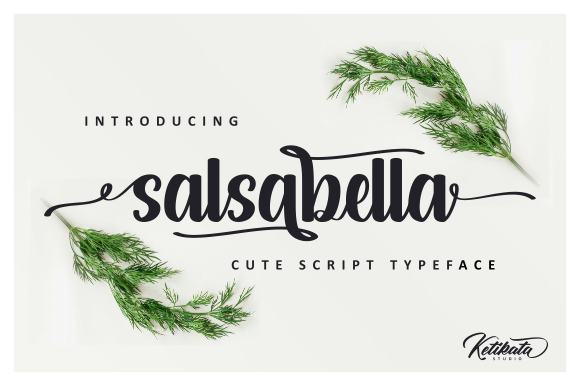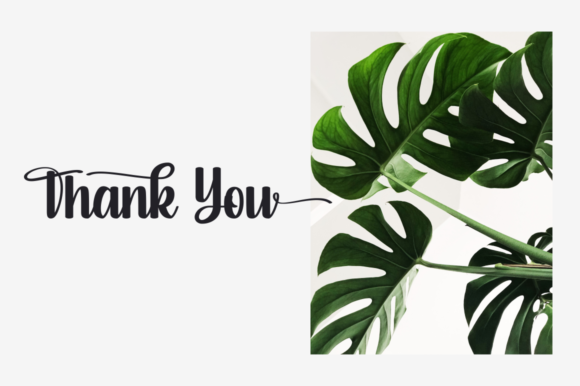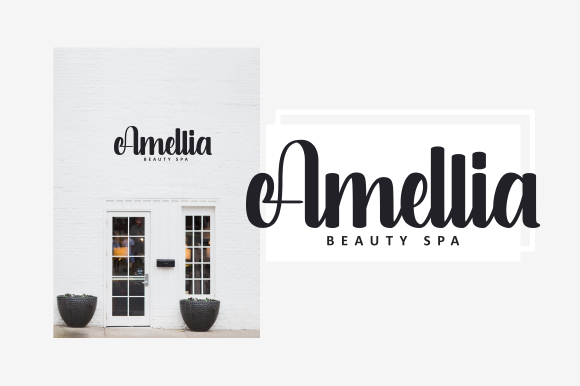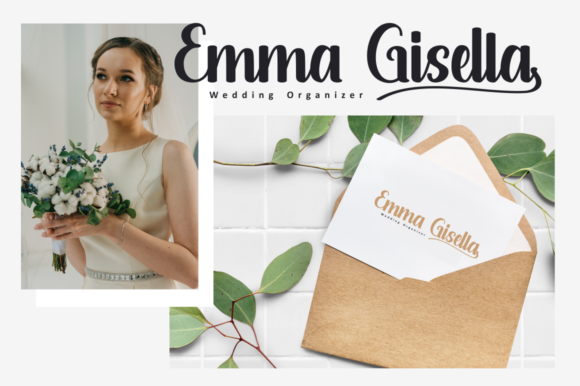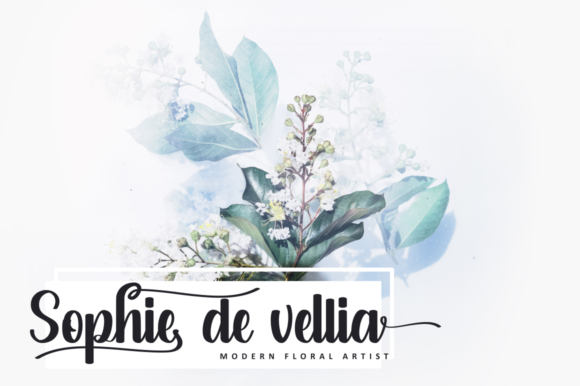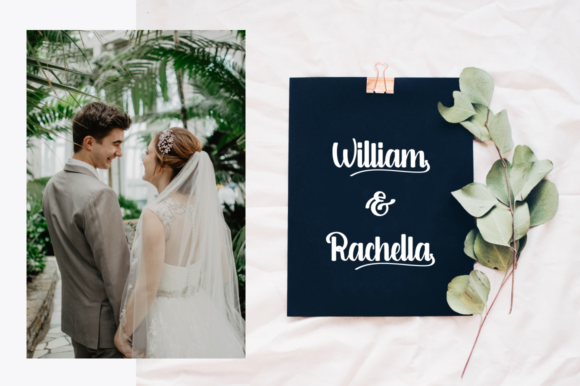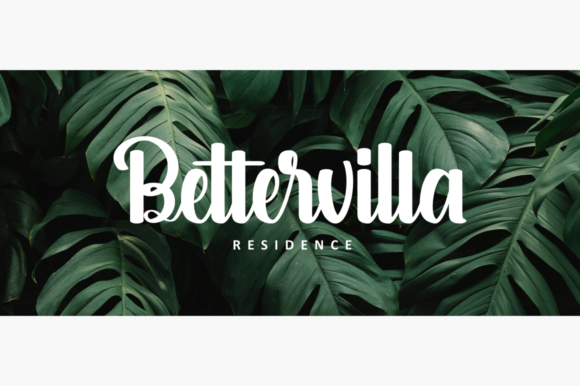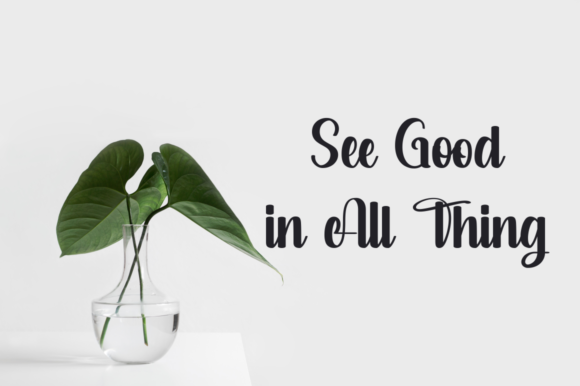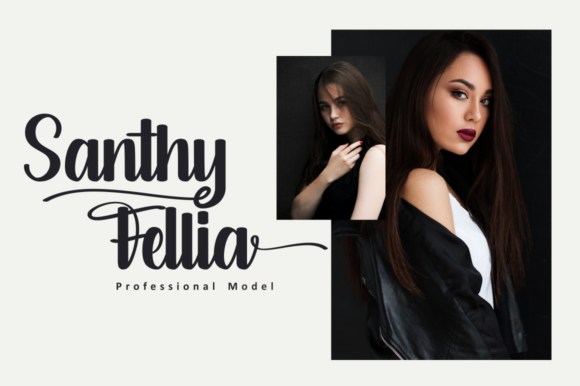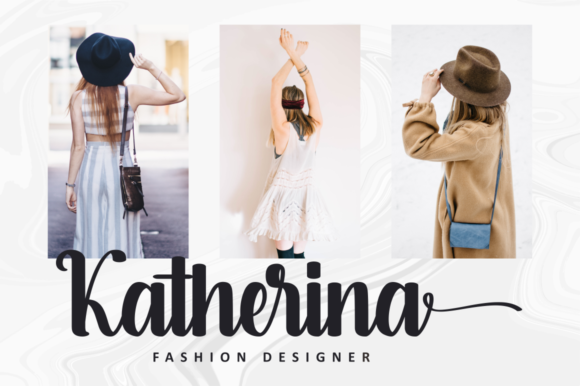
Salsabella Font
About Salsabella Font
Salsabella is a modern and cute font with a lot of stylistic alternates, perfect for any project. Fall in love with its unique characters and playful, yet elegant charm.